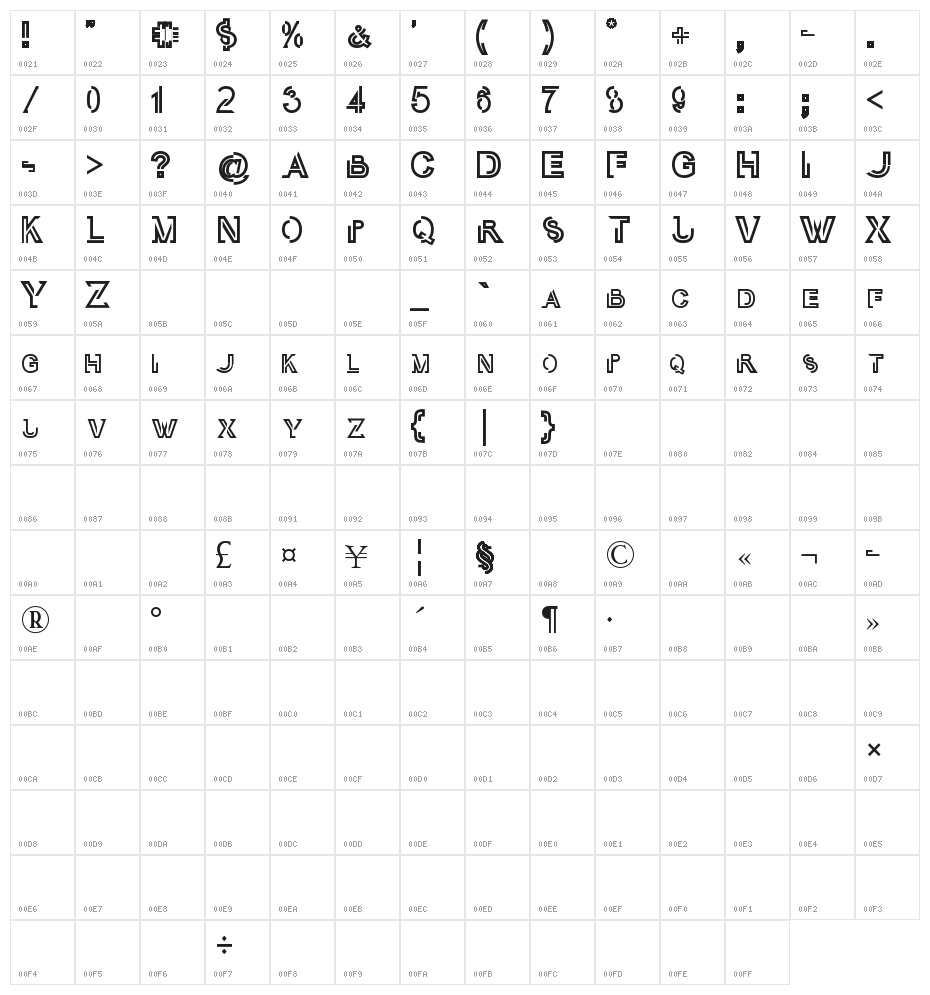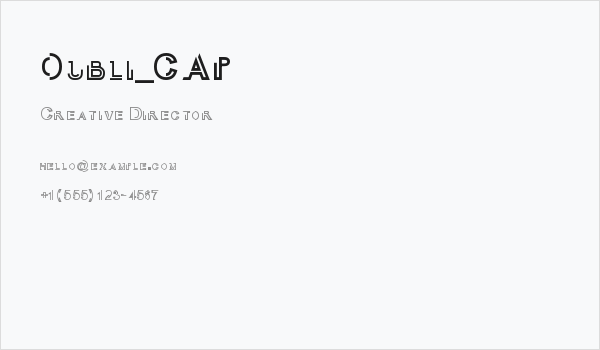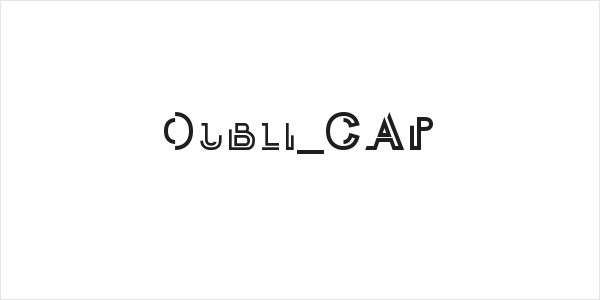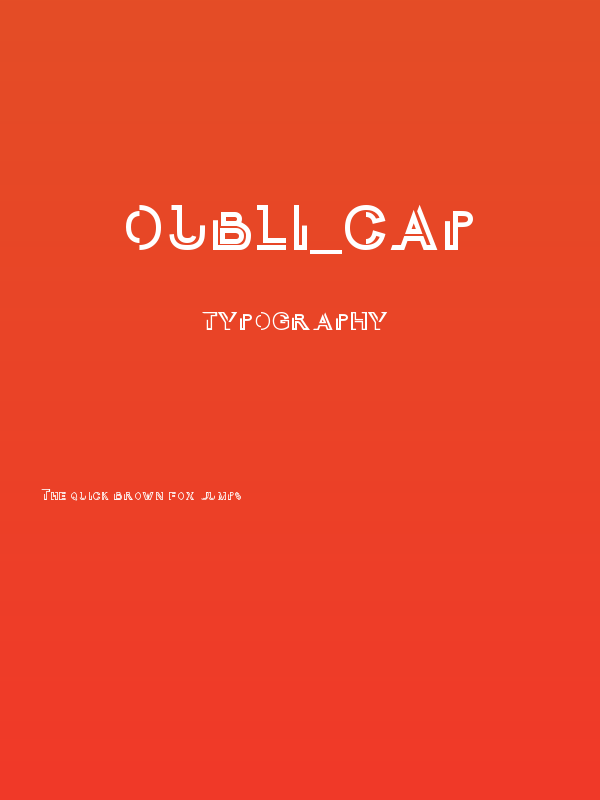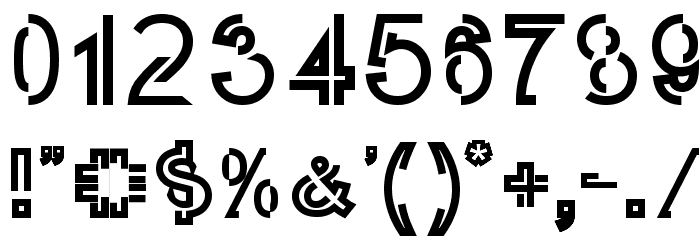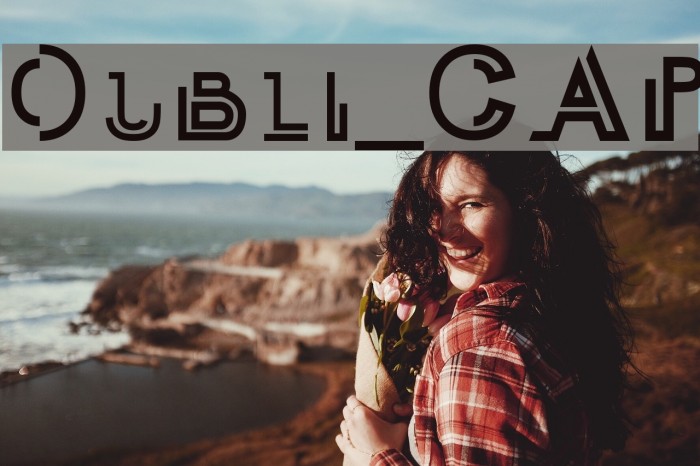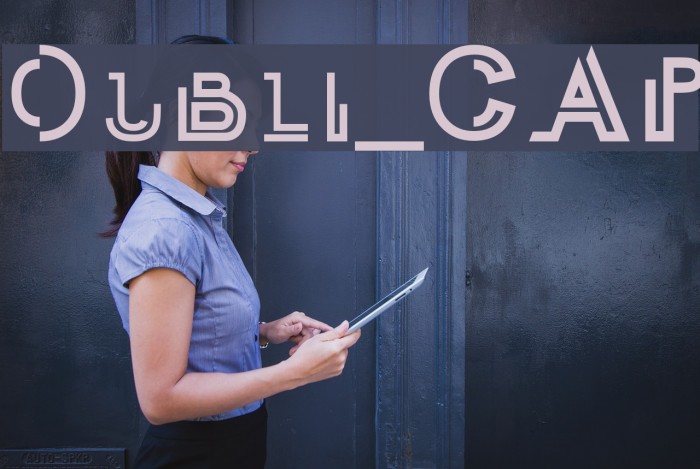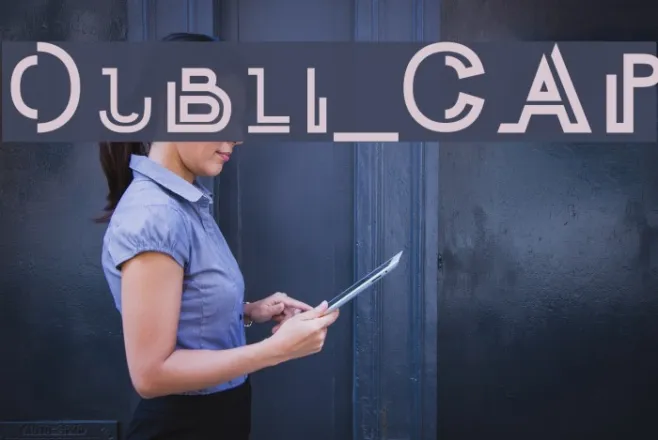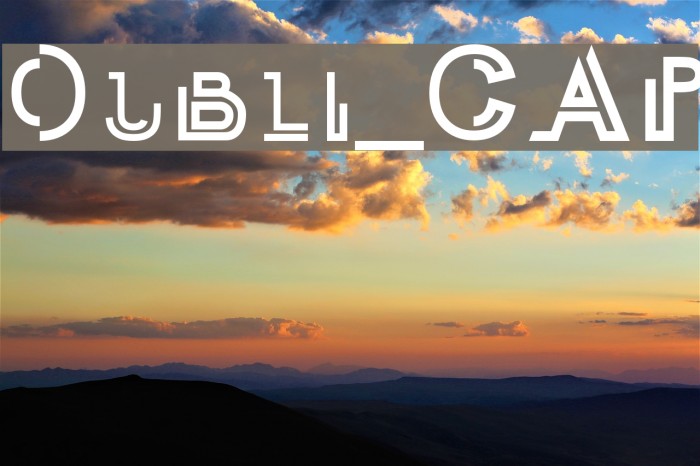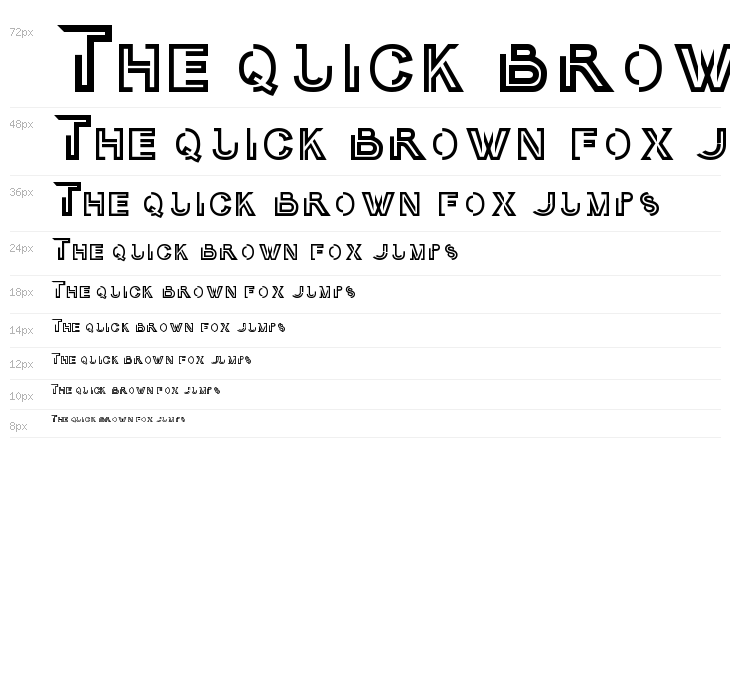
Oubli_CAP Font
Oubli_CAP Description
This font features a bold and striking design with a unique blend of geometric and industrial elements. The characters are outlined with a thick, black border, creating a strong visual impact. The uppercase letters have a distinct, angular appearance, while the lowercase letters maintain a consistent style. Numbers are bold and easily distinguishable, making them ideal for attention-grabbing displays. The special characters are creatively designed, adding to the font's overall aesthetic. This font is perfect for projects that require a modern, edgy look.
| Proposed Projects | Ideal for posters, logos, branding, and any project needing a modern, impactful typeface. |